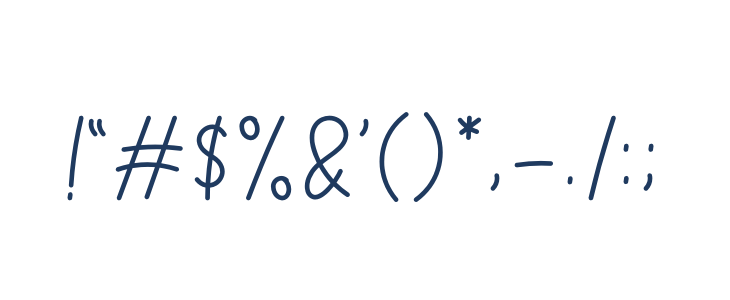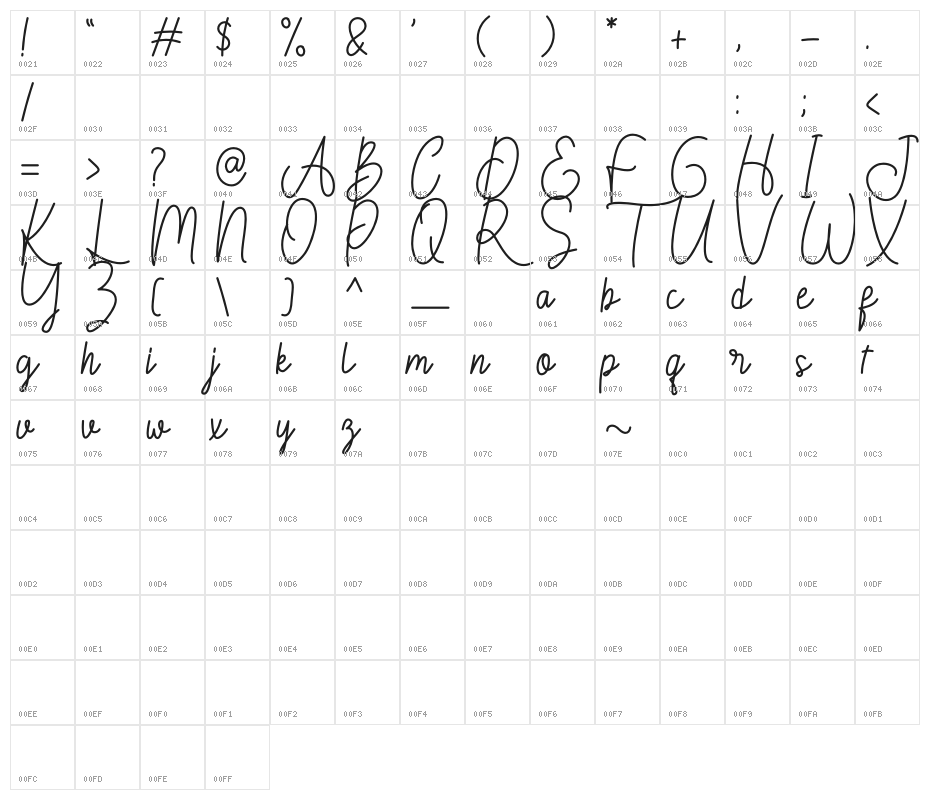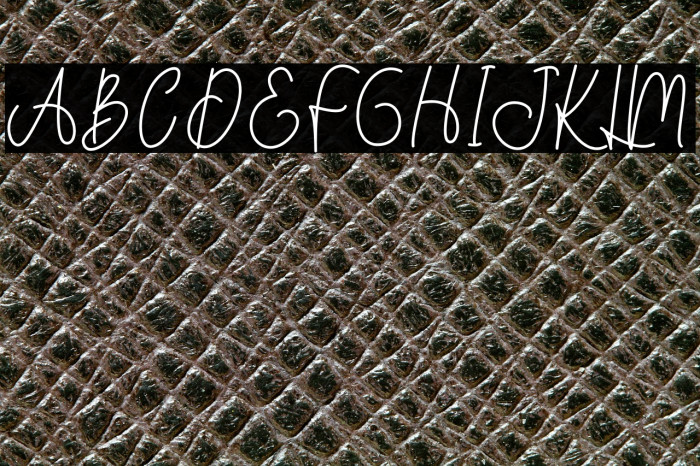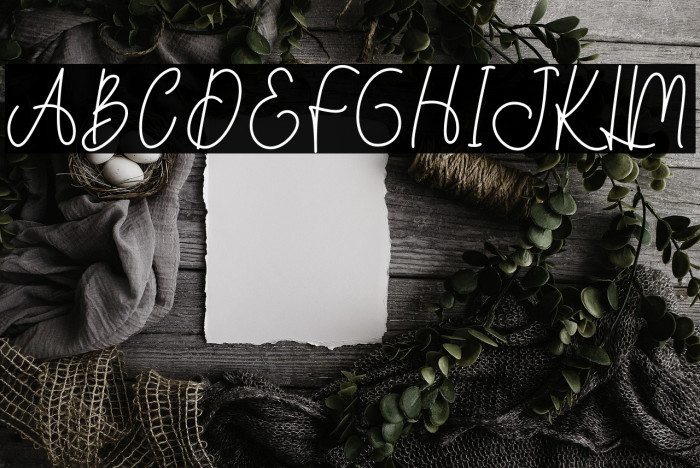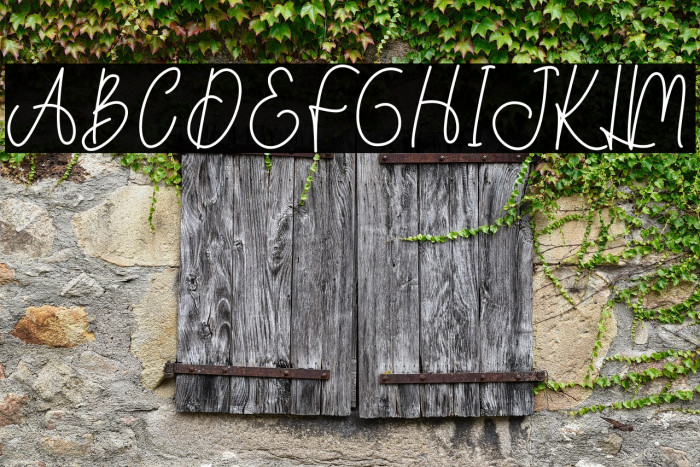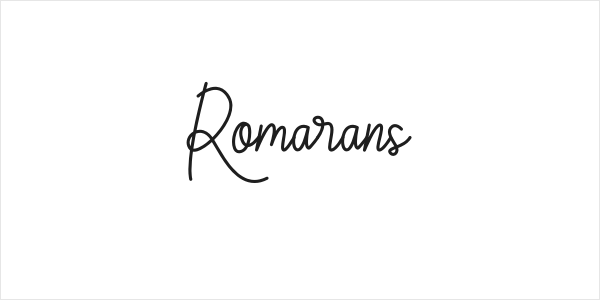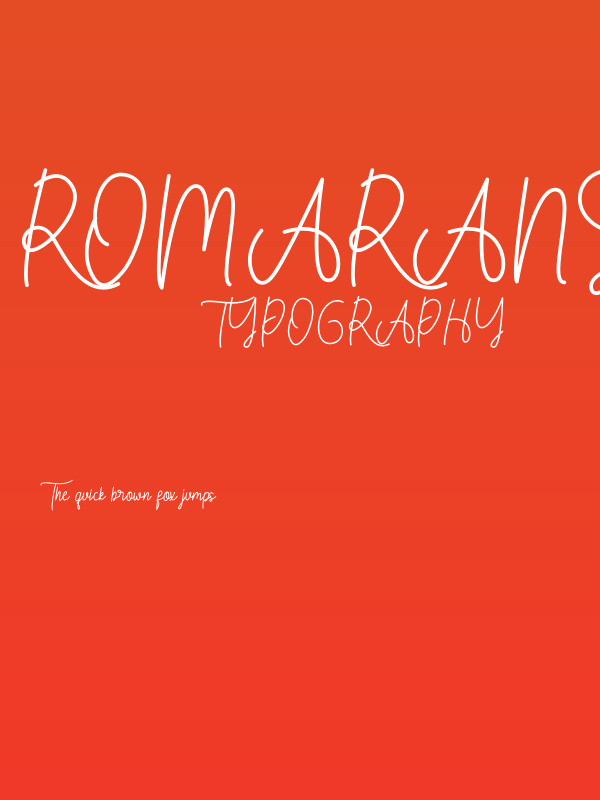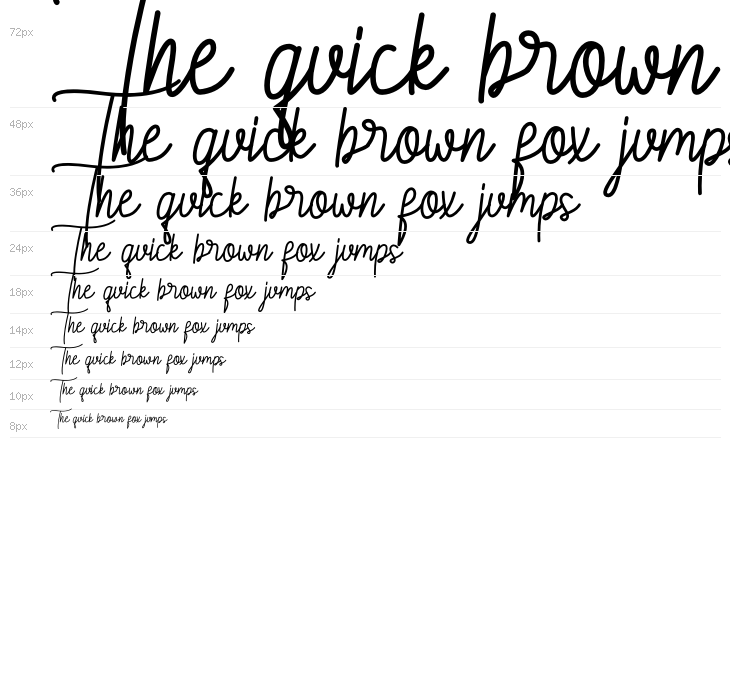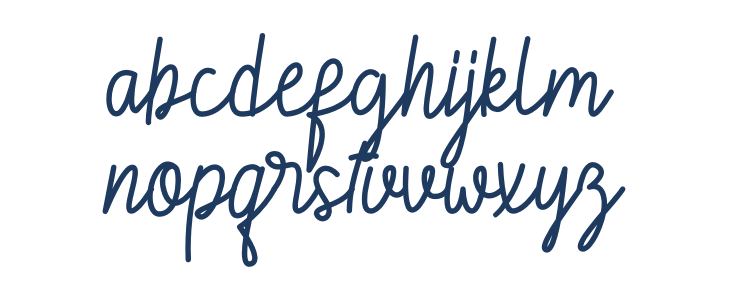
Romarans Font
Romarans Description
This font features a playful and dynamic script style, characterized by its fluid and continuous strokes. The uppercase letters are elegantly looped, while the lowercase letters exhibit a more casual and relaxed form. The overall appearance is lively and expressive, making it suitable for creative and informal projects. The characters are well-balanced with a consistent flow, and the special characters maintain the same whimsical style. This font is ideal for adding a personal touch to designs, with its unique blend of elegance and informality.
| Proposed Projects | Ideal for invitations, greeting cards, branding, and creative projects that require a personal touch. |